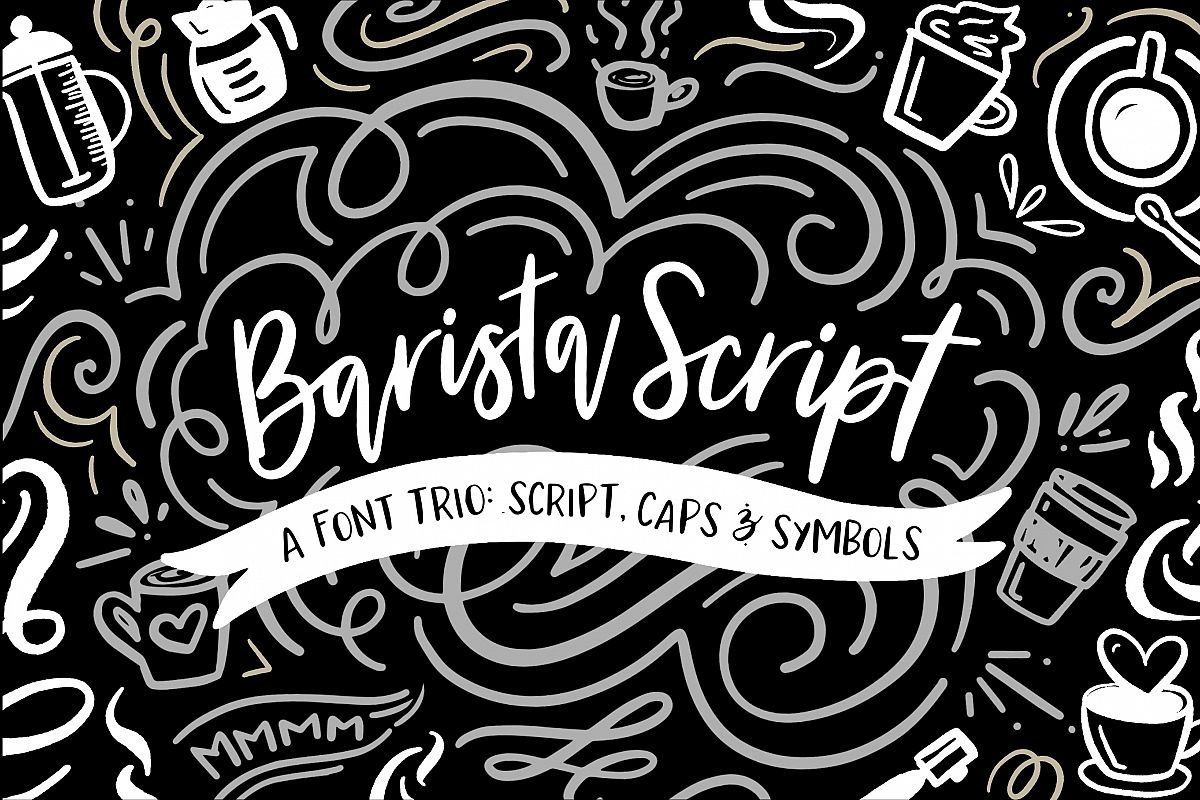
Barista Script
Barista Script includes three separate fonts in one! A separate script, caps and symbols font mean that you have everything you need to create the design you want. Perfect for greeting cards, branding, stationery design, social media, packaging, magazine layouts, prints and more!
With three unique fonts, you can alternate styles, use symbols for branding, or mix and match script + all caps for creative designs. Within these fonts, there are 11 different ligatures to create a unique look.